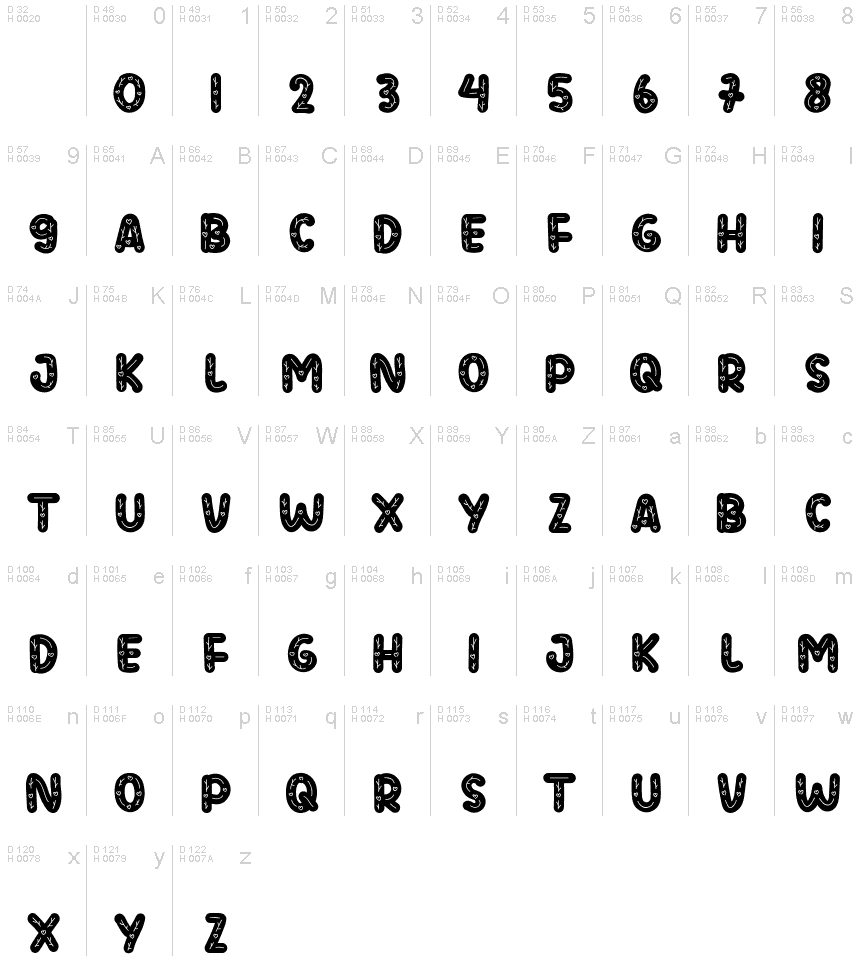
Love Story
Love Story is a bold and decorative display font that effortlessly captures the essence of romance and elegance.
With its enchanting curves and intricate details, this font is perfect for wedding invitations, love letters, and anniversary cards. Its bold weight adds a touch of drama to headlines, making it equally suitable for fashion magazines, beauty blogs, and luxury branding.
Love Story's unique style brings a sense of whimsy to any design project, making it an ideal choice for greeting cards, scrapbooking pages, and social media graphics.